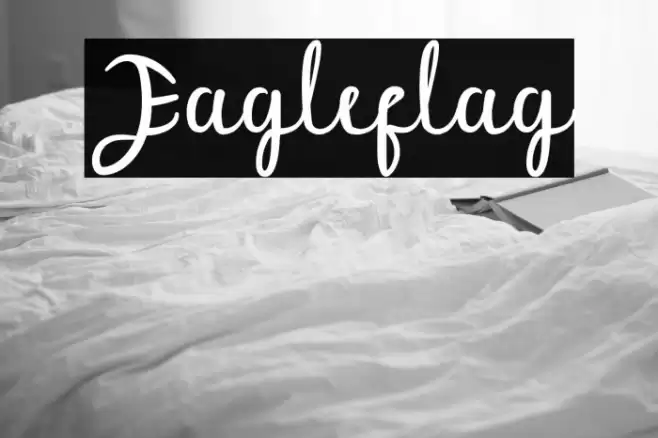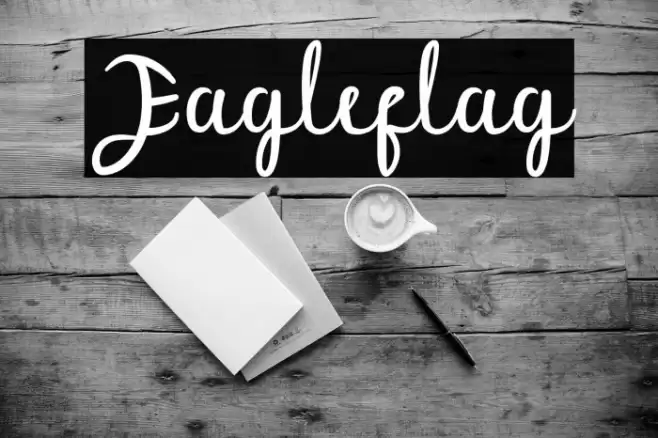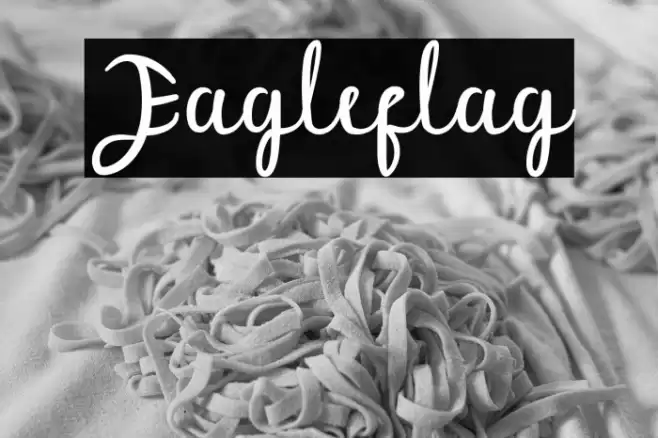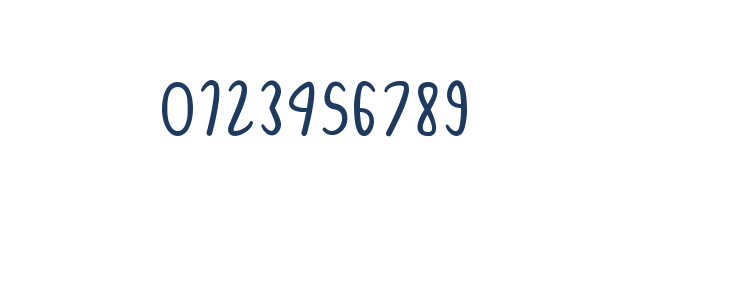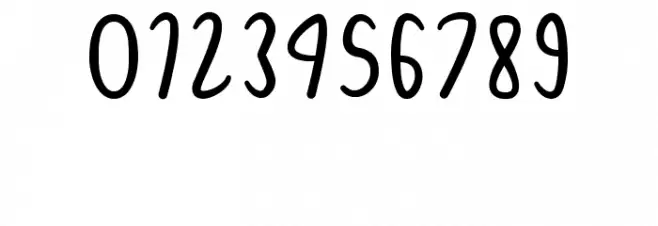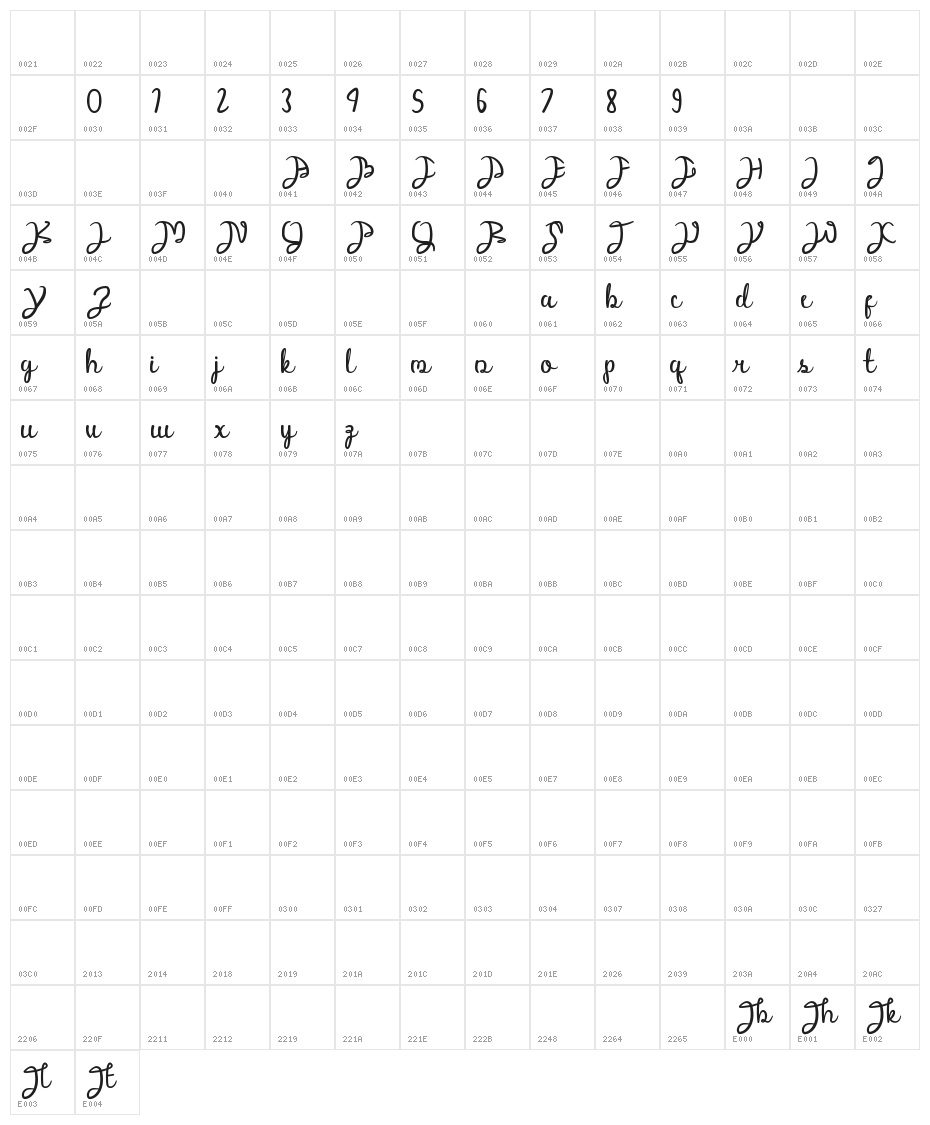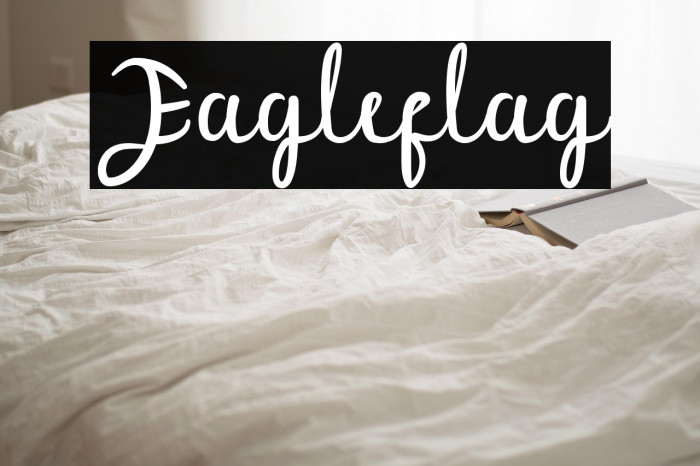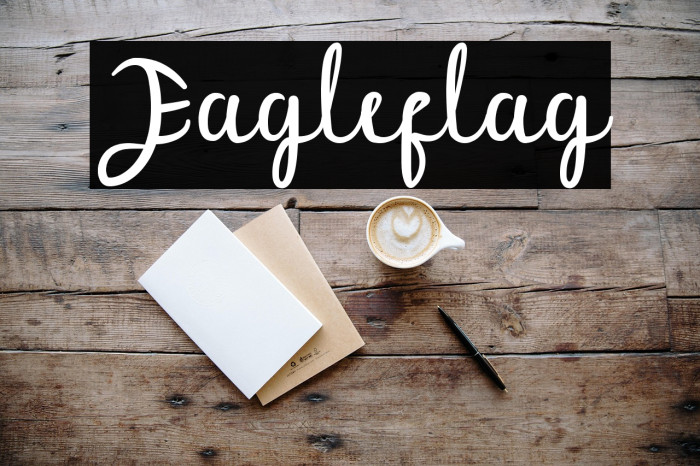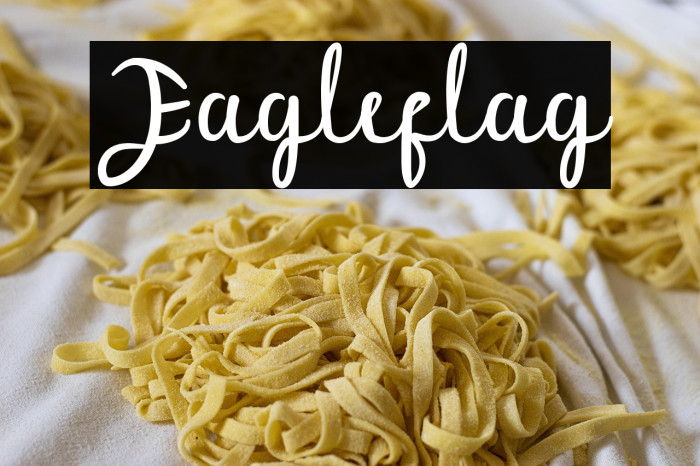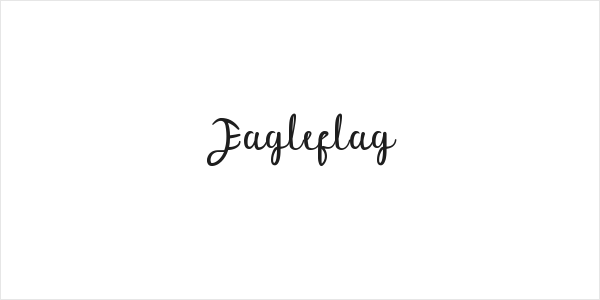
Eagleflag Font
Eagleflag Description
This font features a playful and flowing script style, characterized by its smooth, continuous strokes and elegant curves. The uppercase letters maintain a consistent height, while the lowercase letters exhibit a charming looped design, adding a touch of whimsy. The numerals are clear and legible, complementing the overall script style. Special characters are seamlessly integrated, maintaining the font's cohesive look. The font's design is both modern and timeless, making it versatile for various creative applications.
A playful and flowing script font with elegant curves and smooth strokes from Uncategorized fonts.
- Proposed Projects: Ideal for wedding invitations, greeting cards, branding projects, and social media graphics.
- Use Case: Logos, Headlines, Invitations